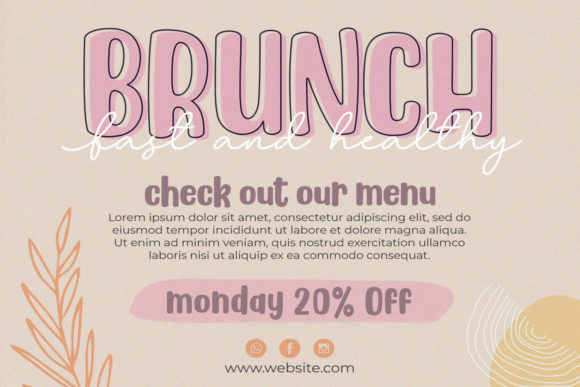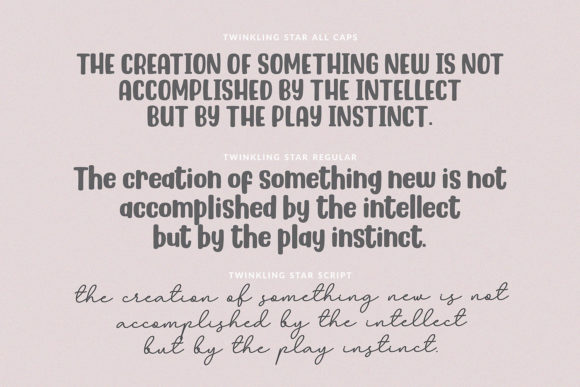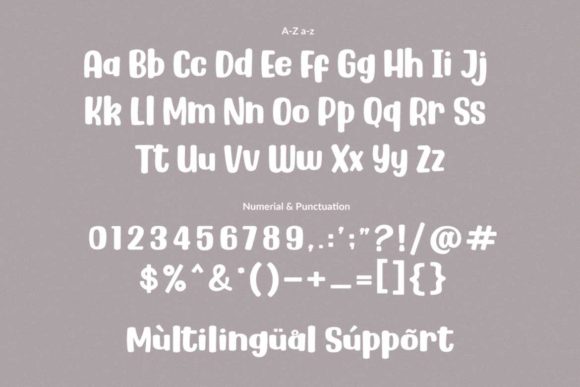
Twinkling Stars Font Font
Twinkling Stars is a cute and lovely duo font (script and display). Together or apart, these fonts are ideal for adding a chic and cheery touch to your crafts. Twinkling Stars is PUA encoded which means you can access all glyphs and swashes with ease!